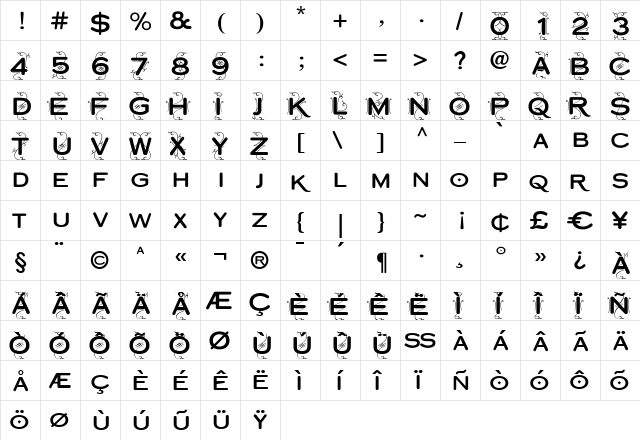
Copperplate Deco Round Regular
Design Context for Copperplate Deco Round Typeface
Copperplate Deco Round softens its letterforms with rounded terminals, giving it an approachable, friendly quality that works well in consumer-facing and digital contexts.
A natural fit for tech startups, health and wellness brands, children's products, and friendly consumer apps.
Font Pairing: Pairs well with a rounded or humanist sans for body copy, maintaining the friendly tone without relying on Copperplate Deco Round to carry extended reading.
Pro Tip: Pair Copperplate Deco Round with a geometric sans for a balanced system — the rounded softness works as a warm counterpoint to harder-edged companions.